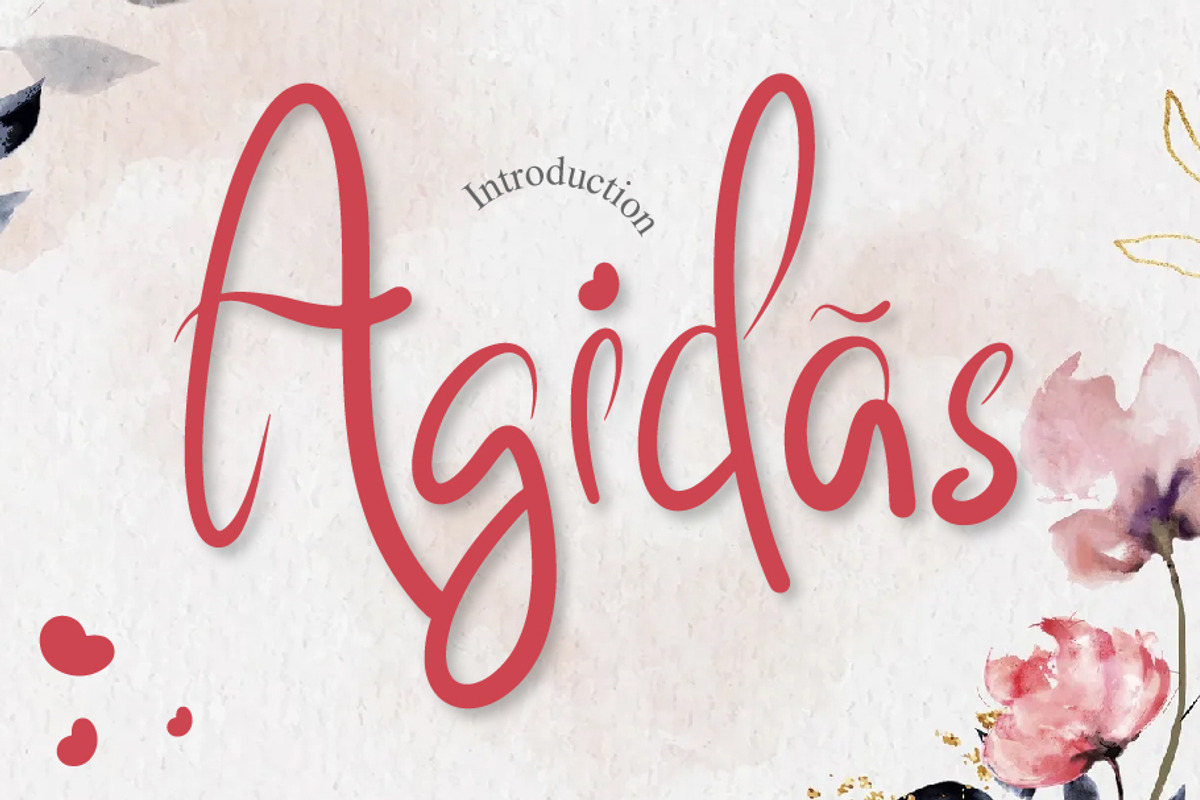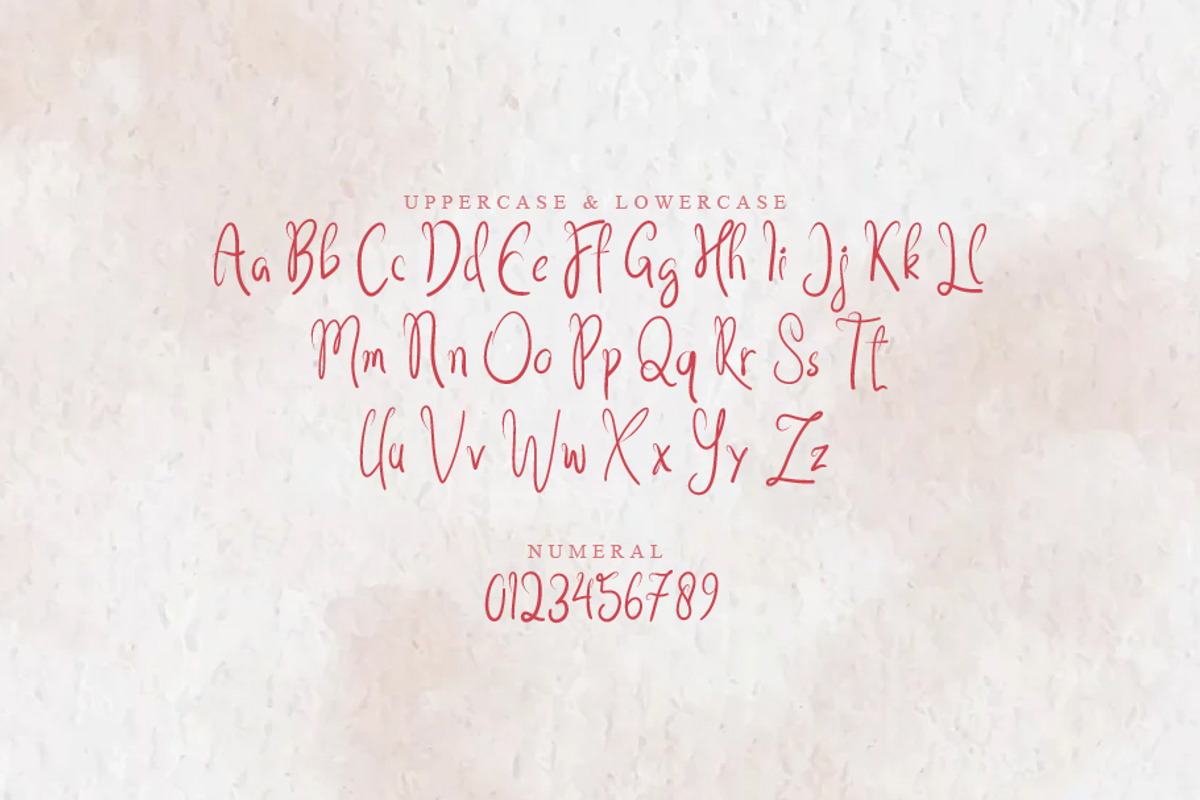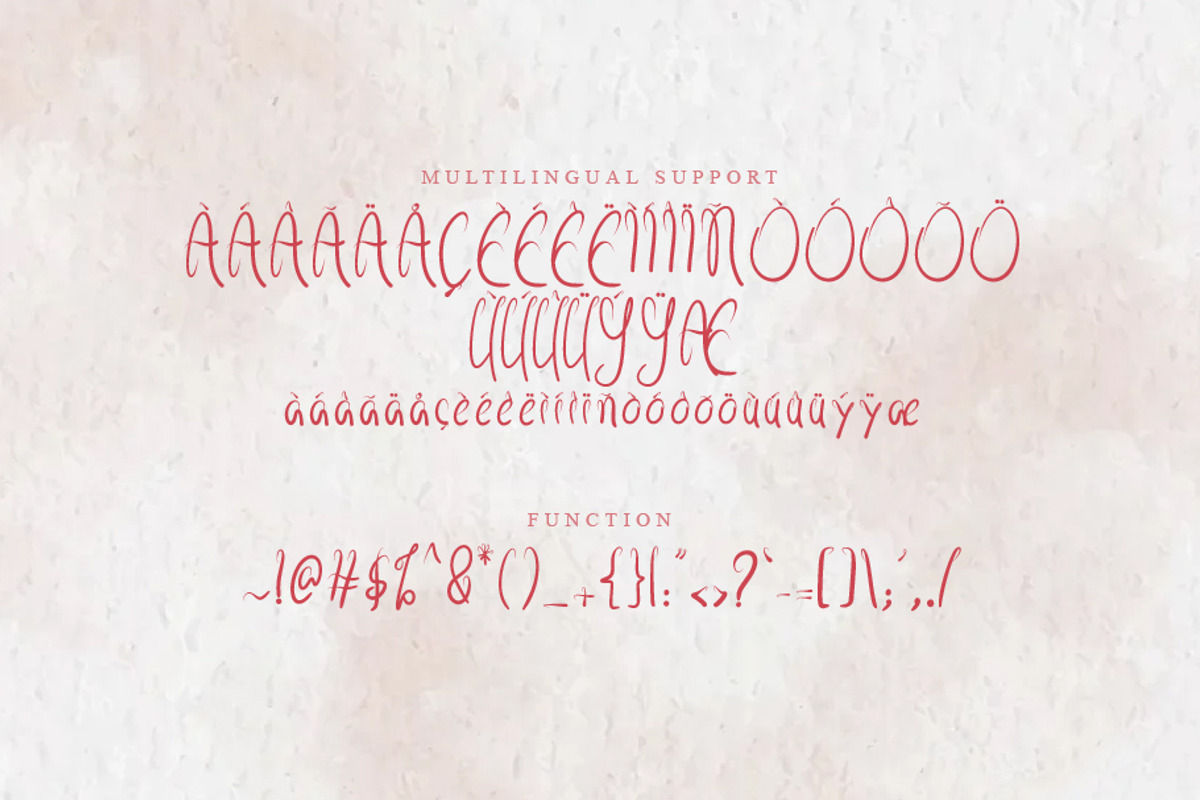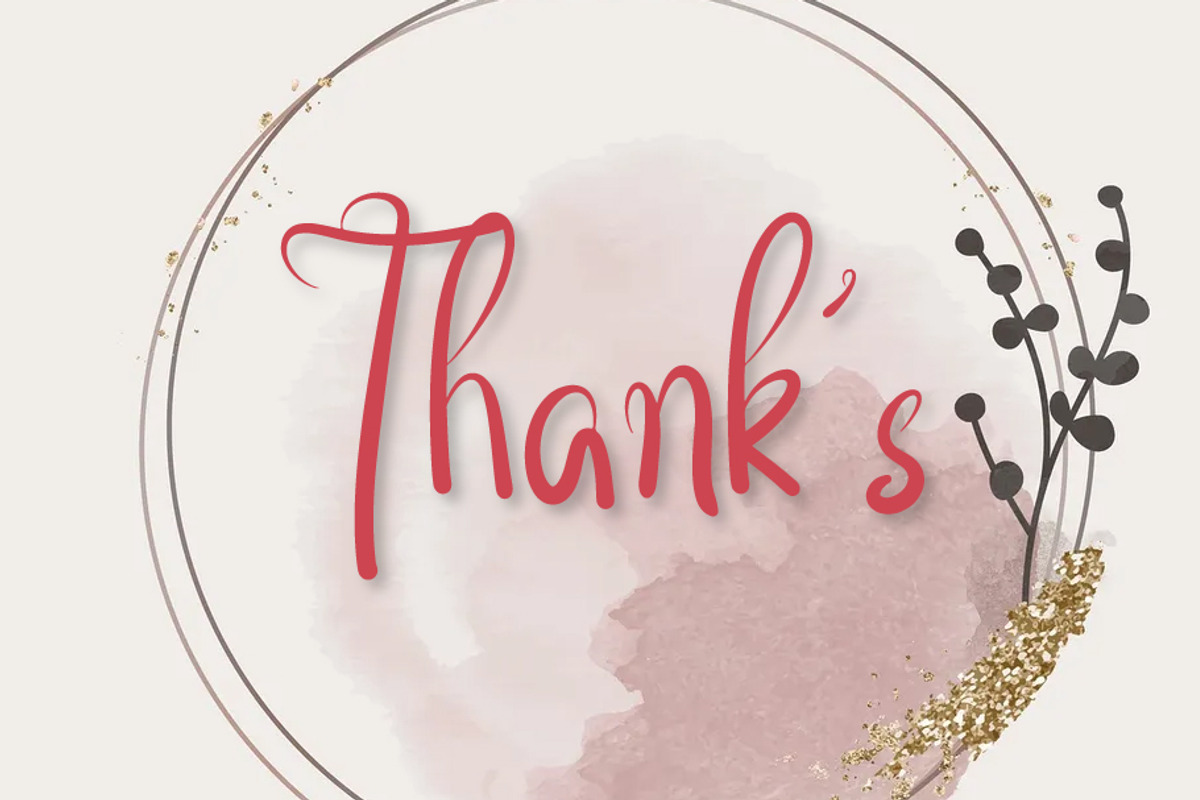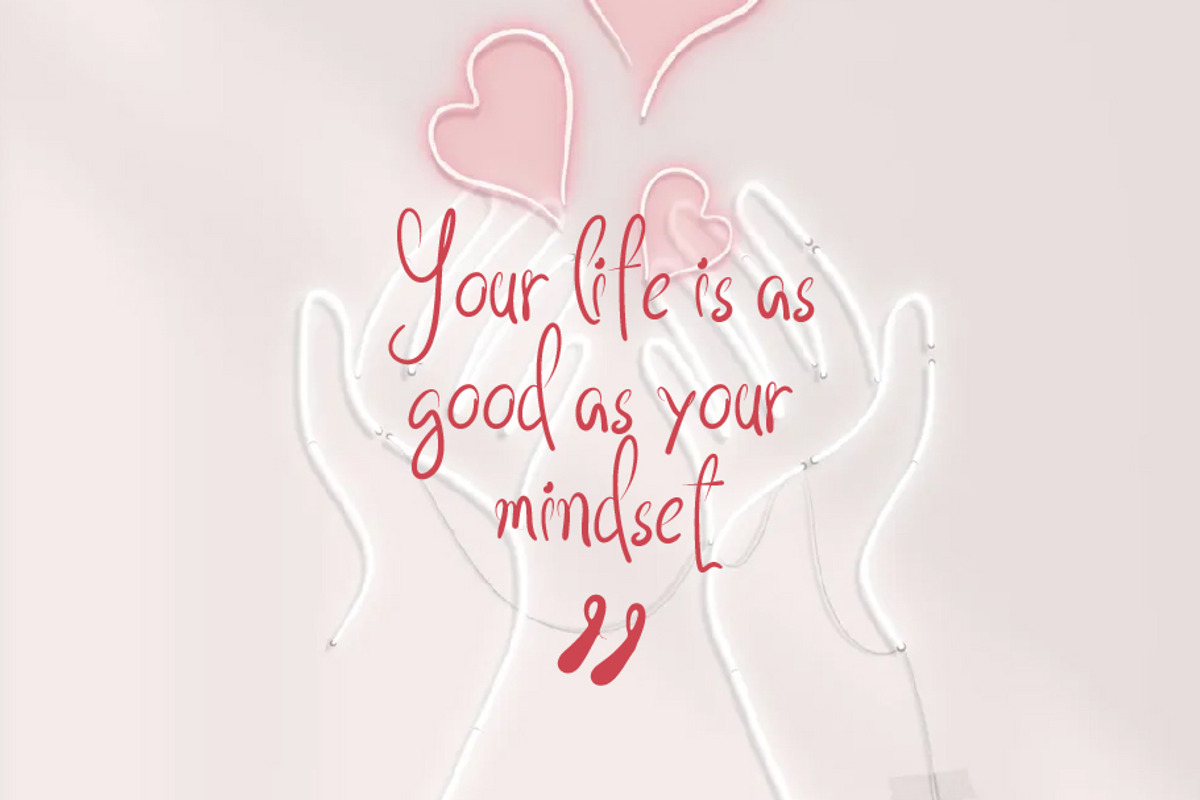
Agidãs
Agidãs is a simple and neat lettered handwritten font. Its natural and unique style makes it incredibly fitting to a large pool of designs. The only limit is your imagination!